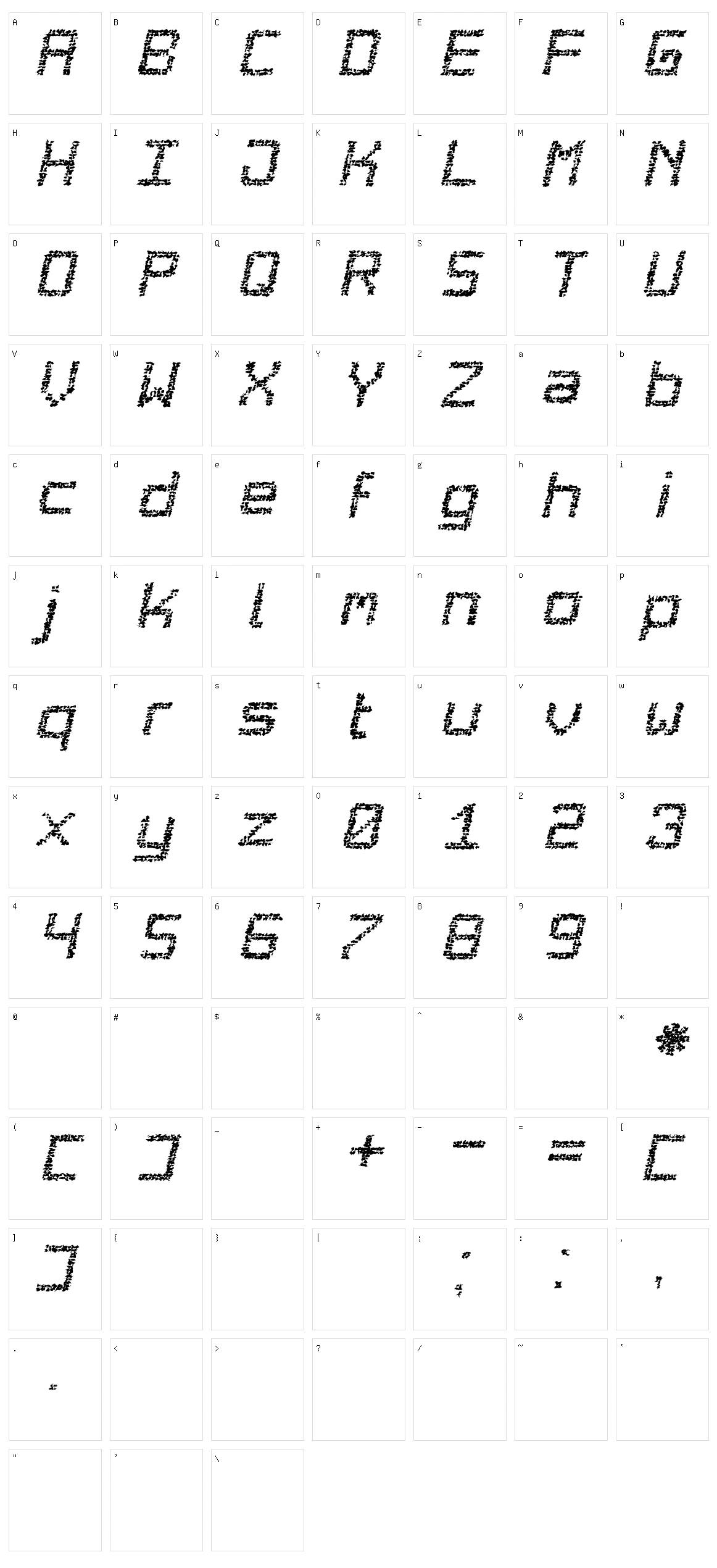
The free font Desgastada TFB is carefully designed by zanatlija, showcasing a thoughtful balance of creativity and usability and falls under the Eroded font style. When you download the ZIP file, it contains only 103.3 KB of font files, making it lightweight and quick to download. Please review the license details below to understand permitted usage and distribution rights. If license information is not available, we recommend using this font for personal projects only or contacting the author directly for commercial usage permissions.